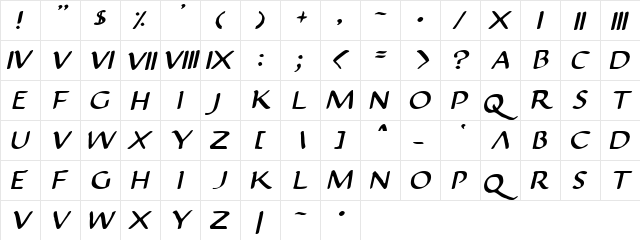
Justinian Italic
Design Context for Justinian Typeface
Justinian is a composed and adaptable typeface that performs quietly and consistently across a wide range of design contexts. Its italic angle brings a sense of urgency and motion to the letterforms.
Pro Tip: Use Justinian for emphasis, pull quotes, and subheadings where its slanted energy can add rhythm to the layout.